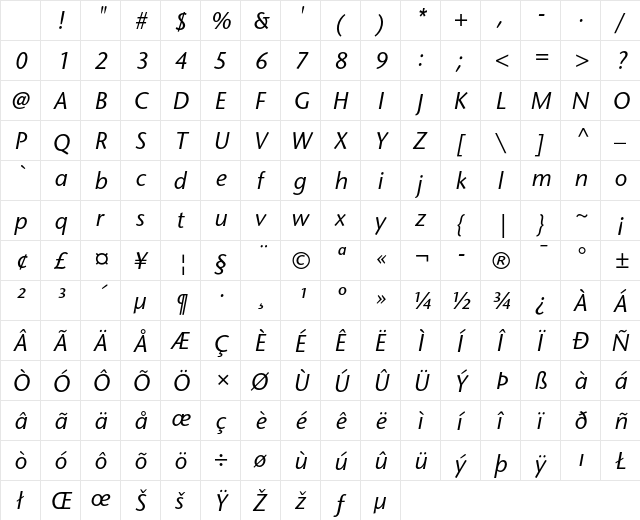
Complete ITC Stone Sans Italic glyph index. Displaying only characters natively supported by ITC Stone Sans Italic font.
ITC Stone Sans is a composed and adaptable typeface that performs quietly and consistently across a wide range of design contexts. The slanted form adds forward momentum and visual energy.
Pro Tip: Use ITC Stone Sans for emphasis, pull quotes, and subheadings where its slanted energy can add rhythm to the layout.